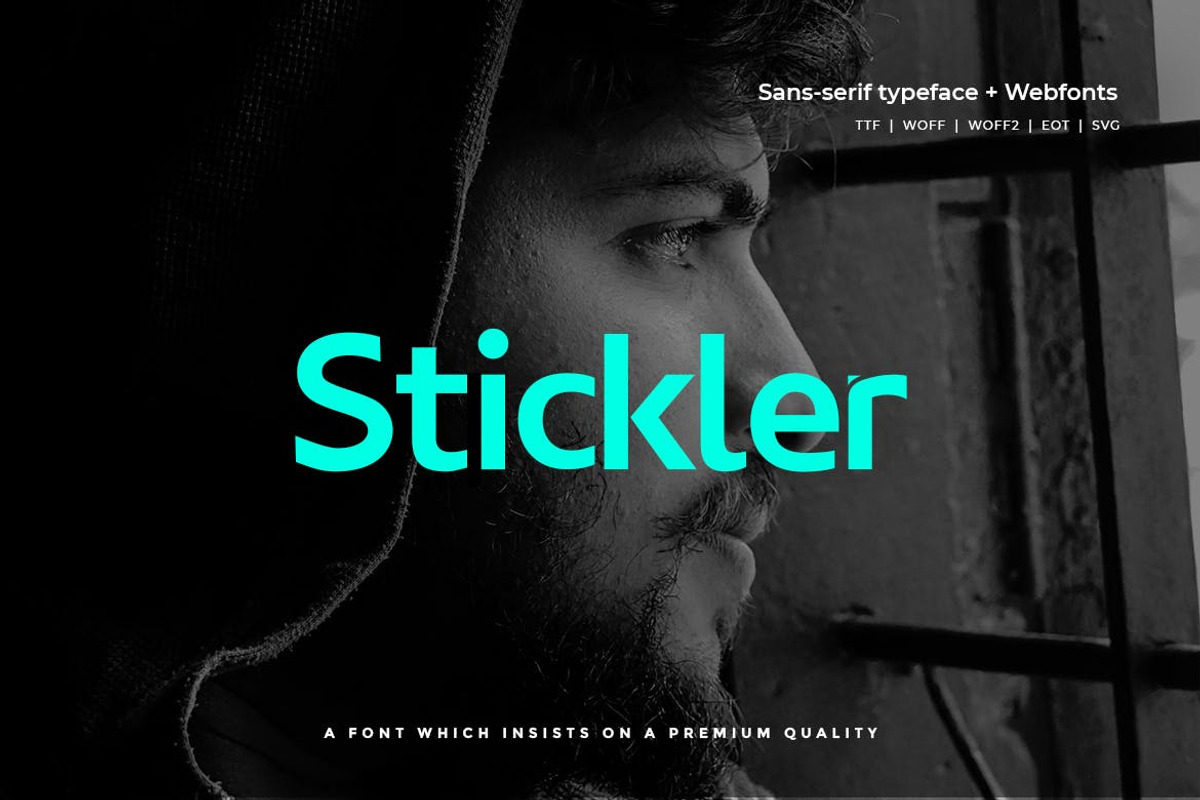
Stickler - Modern Typeface + WebFont
Stickler Sans Typeface
The stickler is a modern and Minimal Sans Serif typeface, Stickler Sans can keep the minimalism at its level best and is a perfect choice for Creative and Classic Typography Designs. The pack includes OTF, TTF, and Web Fonts (all EOT, SVG, TTF, WOFF included).